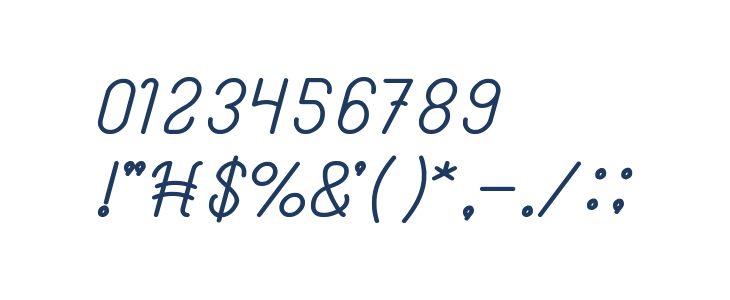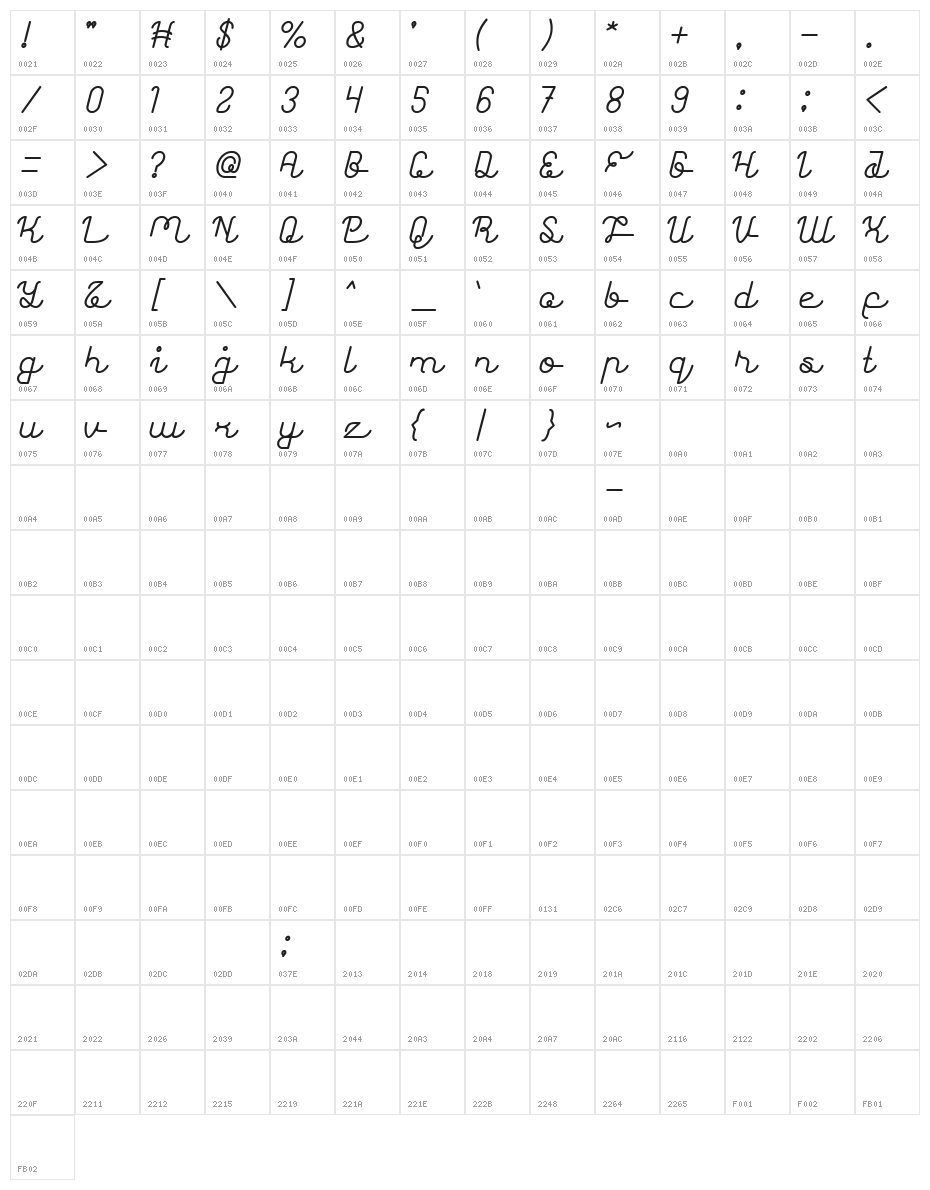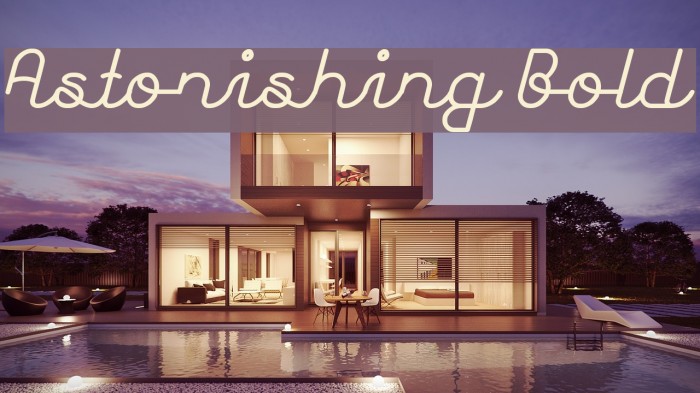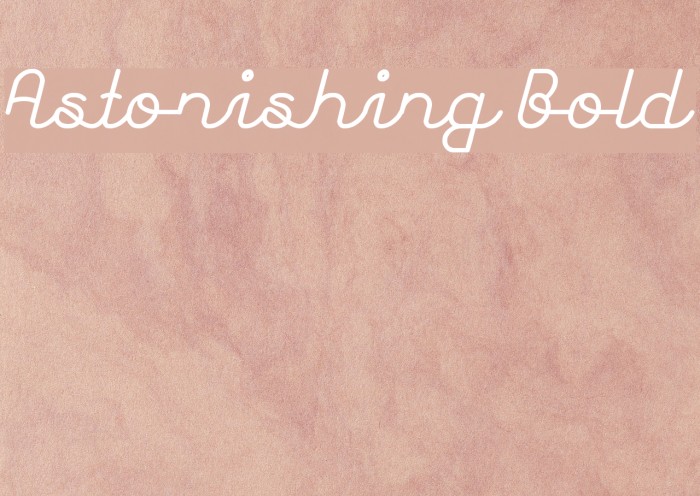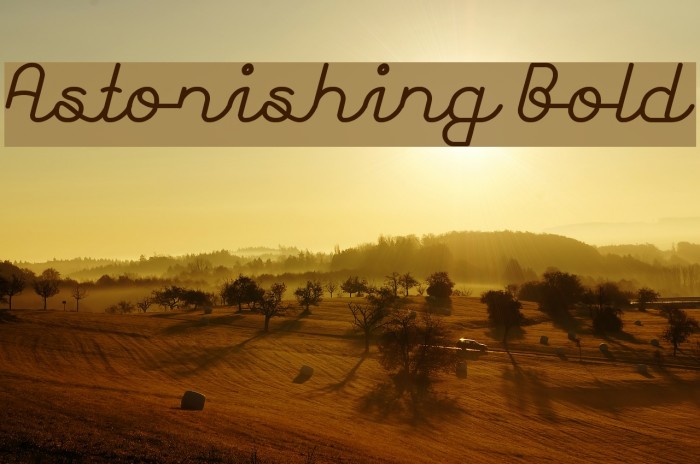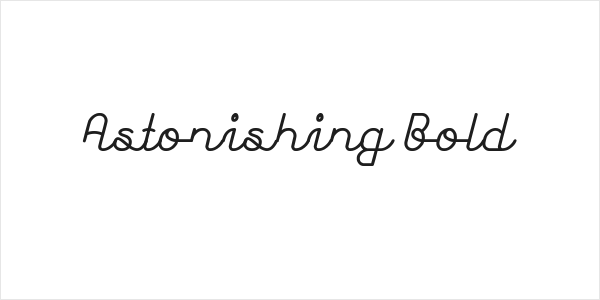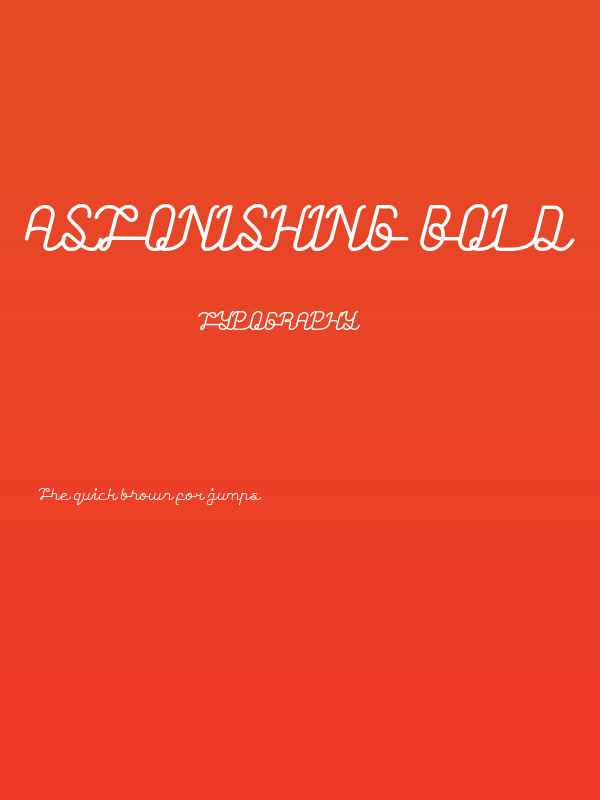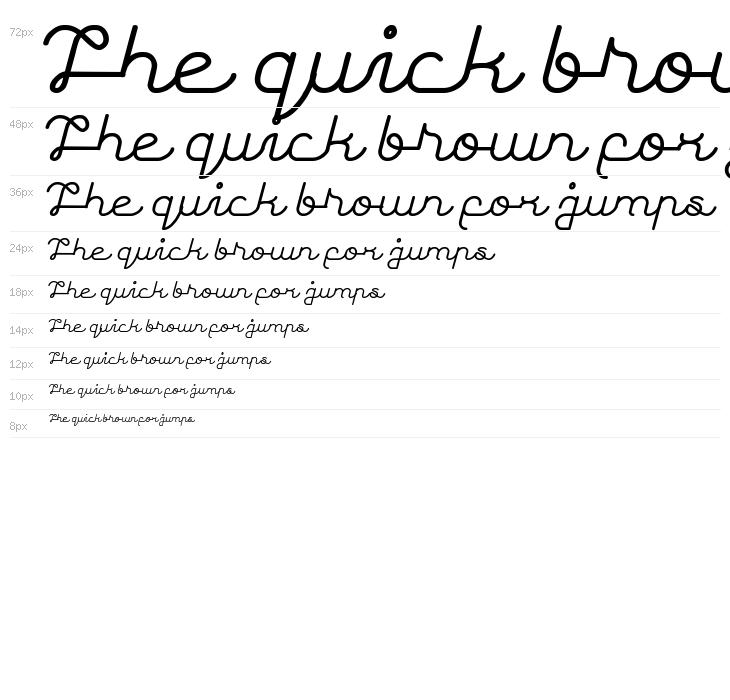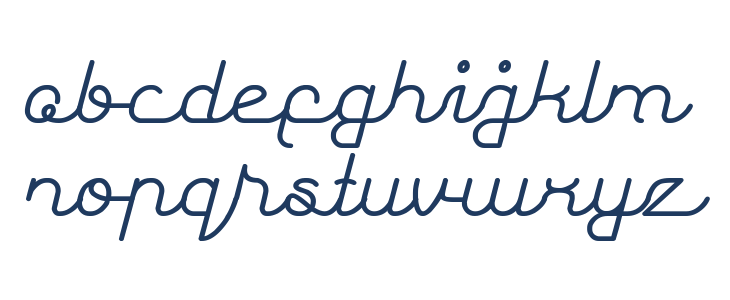
Astonishing Bold Font
Astonishing Bold Description
This font exhibits a playful and modern cursive style with a bold presence. The characters are interconnected, creating a flowing and continuous script that maintains legibility. The uppercase letters are slightly more elaborate, while the lowercase letters maintain a consistent rhythm. The numerals are clear and distinct, matching the overall style of the alphabet. Special characters are well-integrated, ensuring versatility in various contexts. The font's boldness adds to its visibility, making it suitable for attention-grabbing designs.
ASTONISHING-BOLD UPPERCASE
ASTONISHING-BOLD LOWERCASE
ASTONISHING-BOLD OTHER CHARS
| Proposed Projects | Ideal for branding, invitations, greeting cards, and playful headlines. |
Astonishing Bold